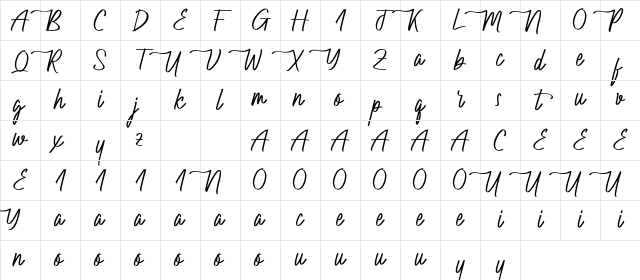
Nailmads Demo Regular Free Font
Nailmads Demo Regular
Foundry: NihStudio
Designer: Widiyanti & Sarah Suci P
Design Context for Nailmads Demo
Nailmads Demo is a composed and adaptable typeface that performs quietly and consistently across a wide range of design contexts.